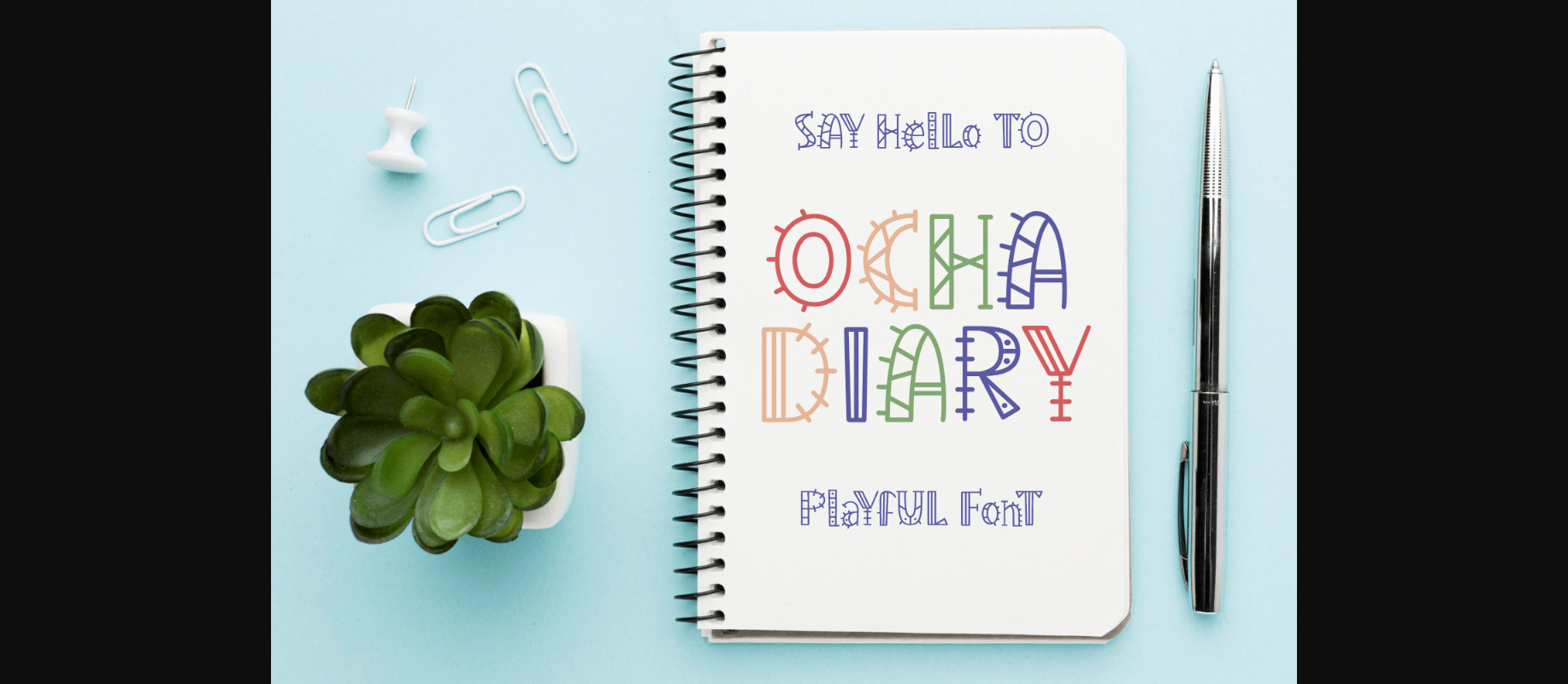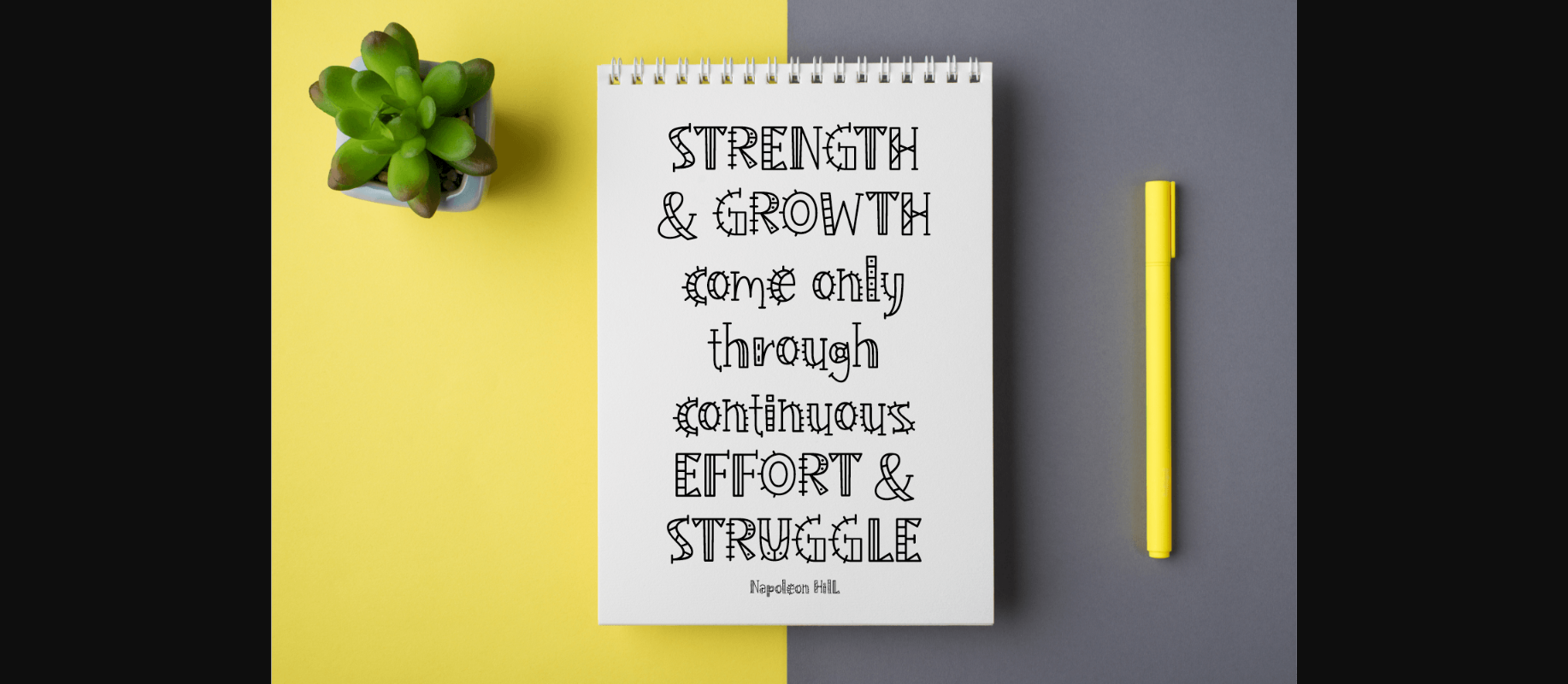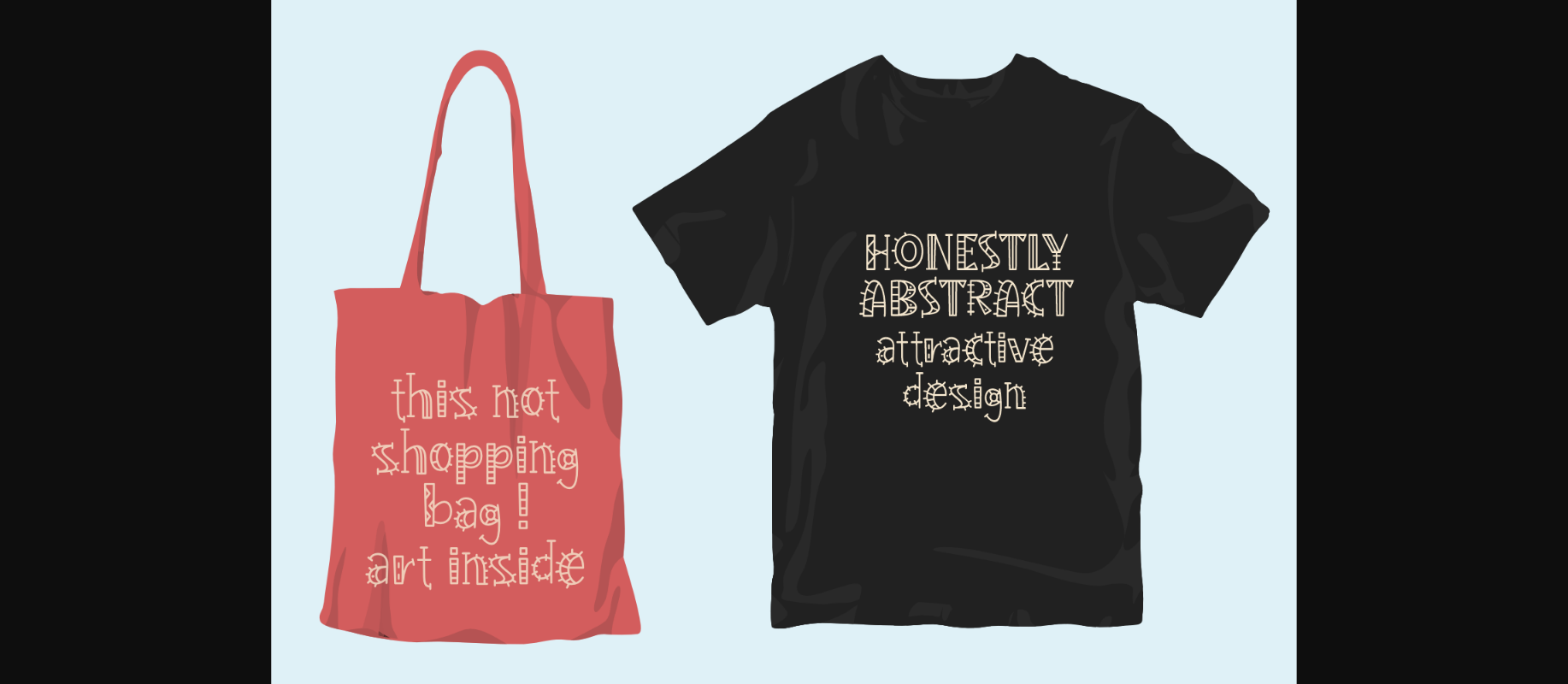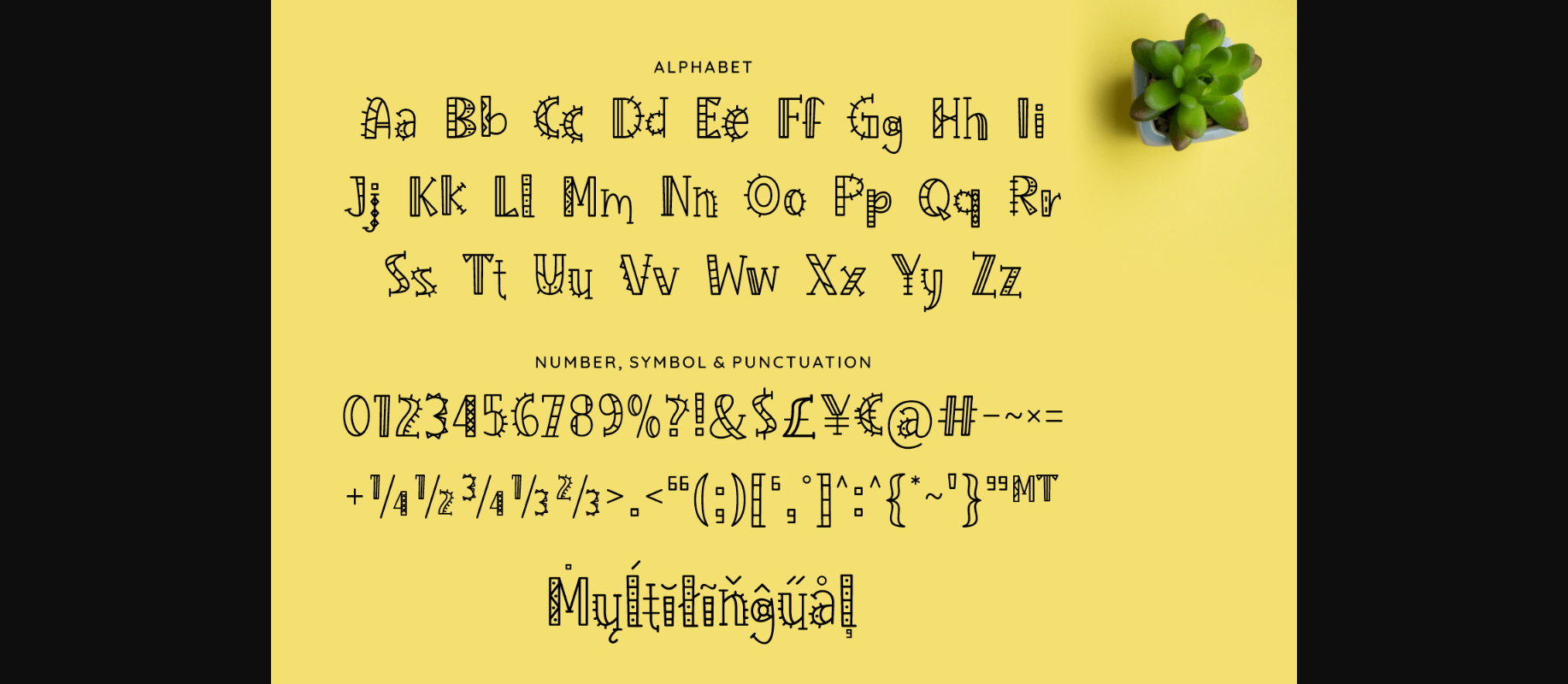
Ocha Diary Font
About Ocha Diary Font
Ocha Diary is a cute and playful decorative font. Whether you’re using it for crafts, digital design, presentations, or making greeting cards, this font has the potential to become your favorite go-to font, no matter the occasion!